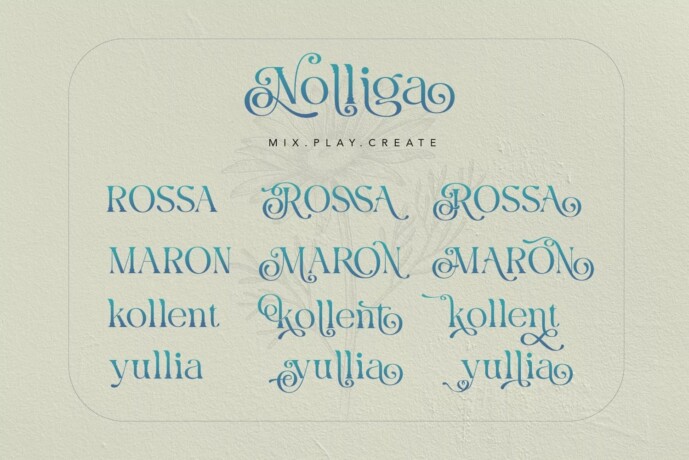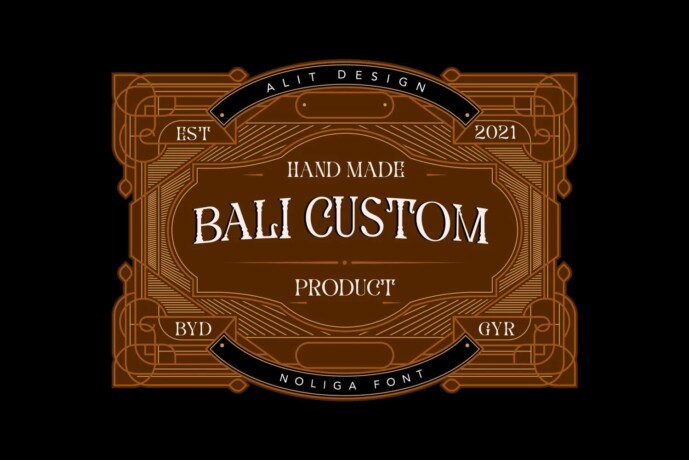
Nolliga Font
Nolliga Font is inspired by the classic era typeface in the 1800 era but is combined with today’s era and produces a very elegant and charming typeface. The details of the “Nolliga Typeface” shape are very subtle and flow creating unique and gorgeous curves. Elegant serif like “Nolliga Typeface” are very easy to apply to any design, especially those with an elegant and smooth concept, apart from that this font is very easy to use in both design and non-design programs because all alternates and glyphs are supported by Unicode (PUA).